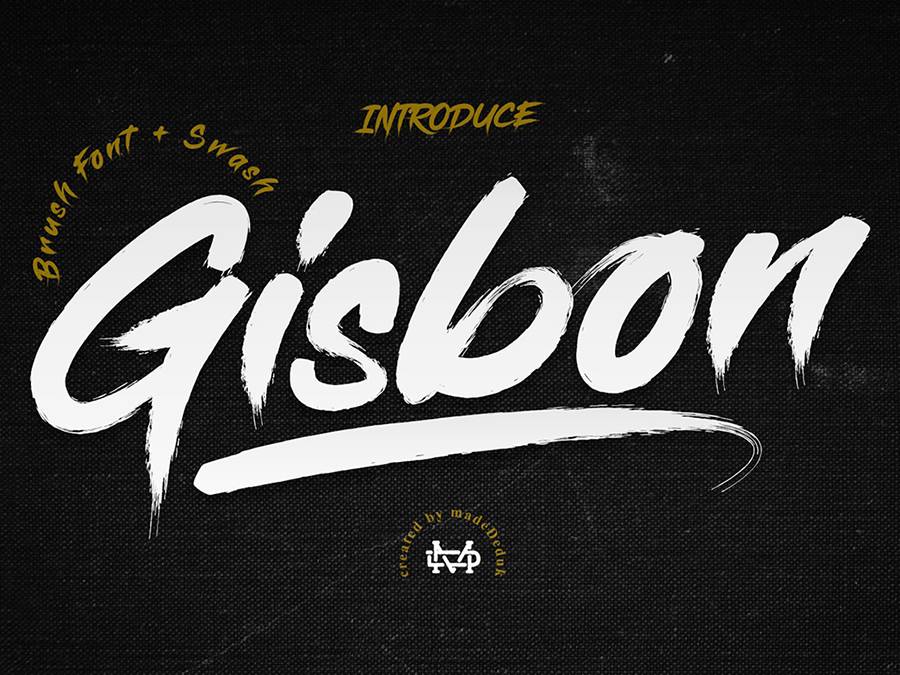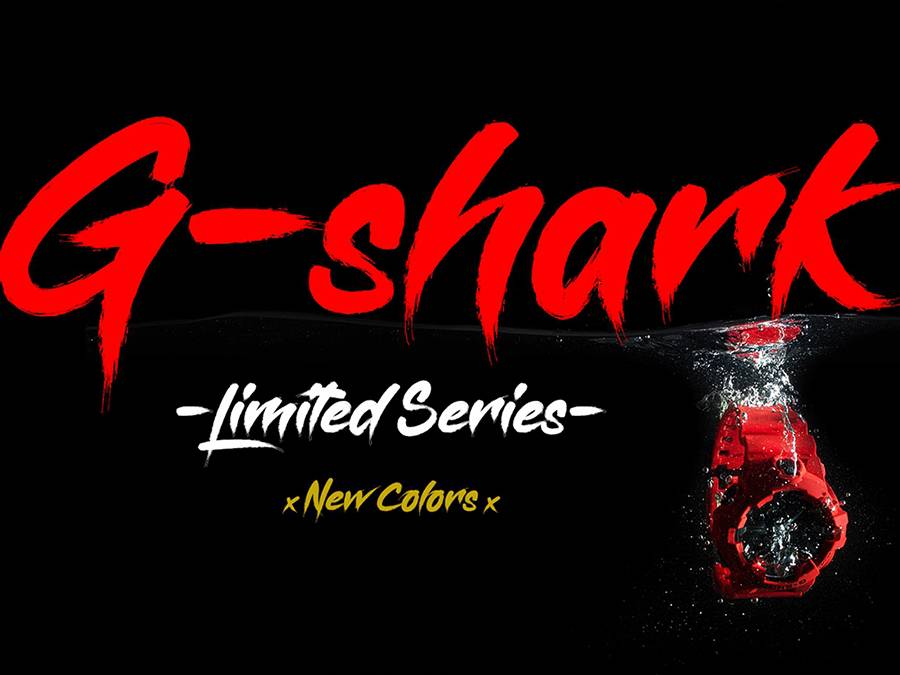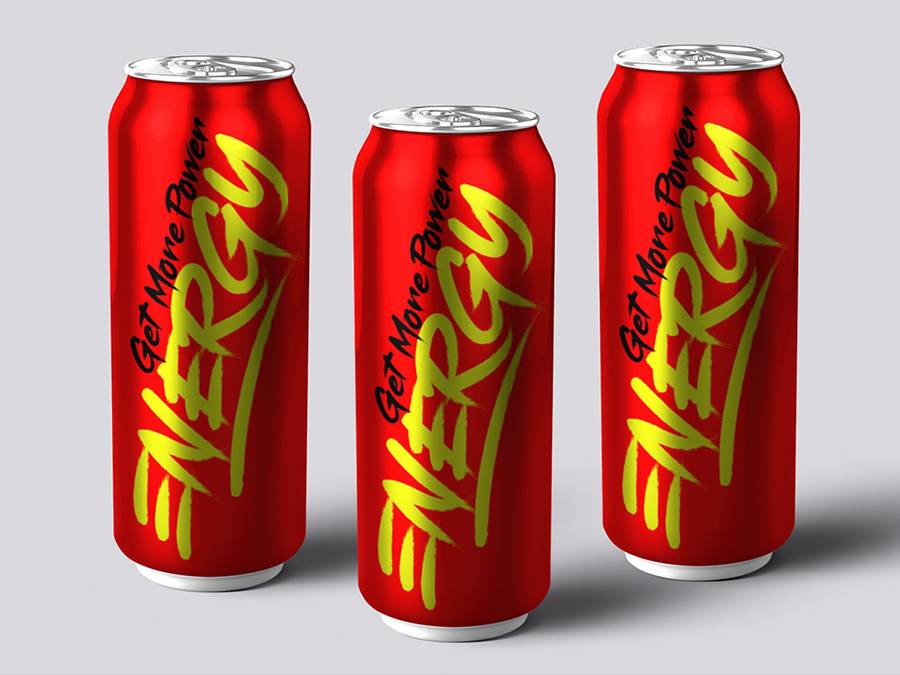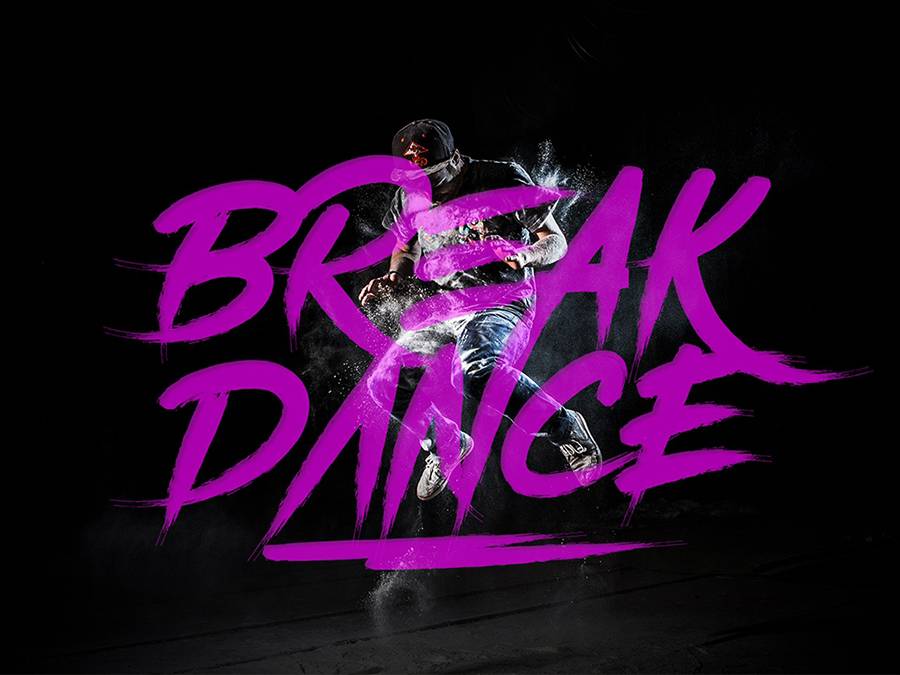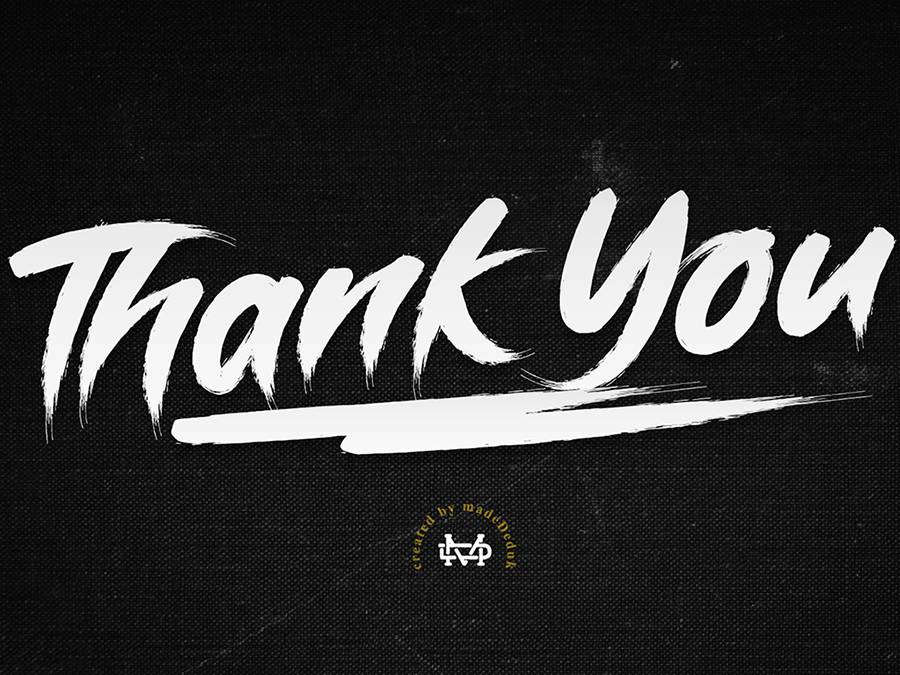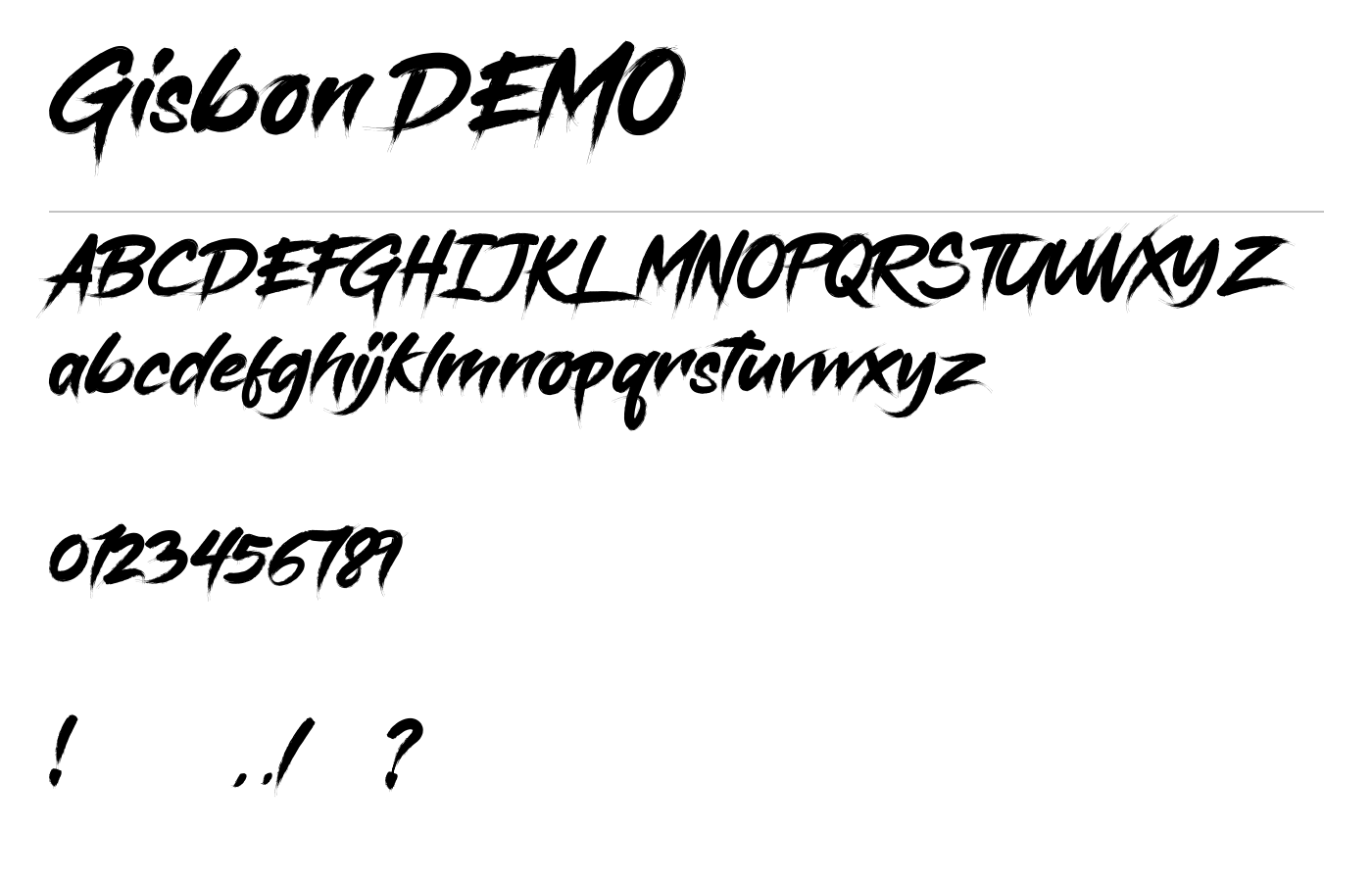
Gisbon Brush Lettering is a dynamic brush script font that exudes energy and creativity with its textured, hand-painted strokes and slightly irregular forms. Its bold, expressive style makes it perfect for projects that need a personal and artistic touch, such as logos, posters, and packaging that aim to capture a lively, spirited vibe. This font stands out best in display uses where its unique, brush-like character can make a strong visual impact.
Gisbon Brush Lettering Font
| Designer | Suandana I Pande Made |